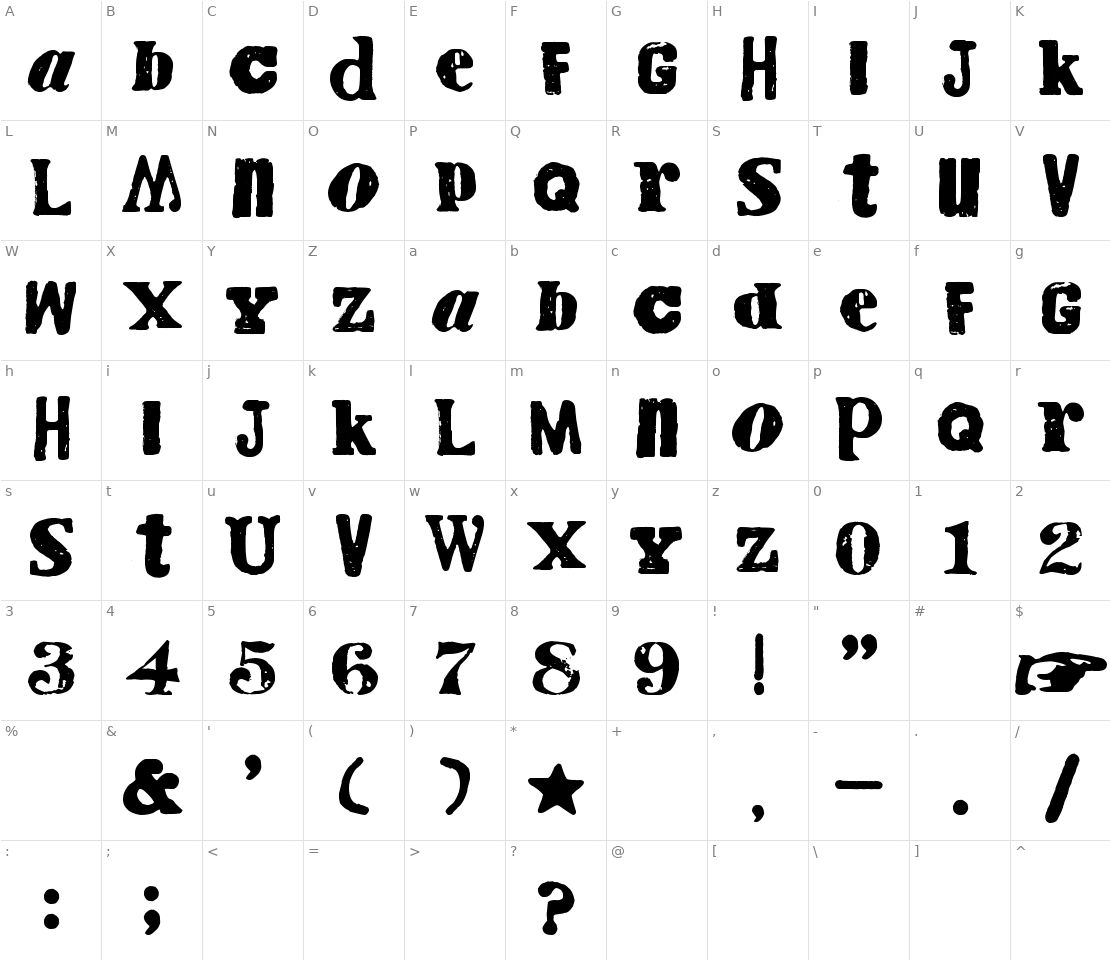
Cry Kitty
Cry Kitty is a heavy, beat-up display face with thick letterforms that look like they've been dragged through dirt and left to weather. The rough, textured edges give every character a worn-in grunge quality that feels genuinely gritty rather than artificially aged. Built for headlines, posters, and short bursts of text where you want something that looks like it's been through hell and doesn't care.